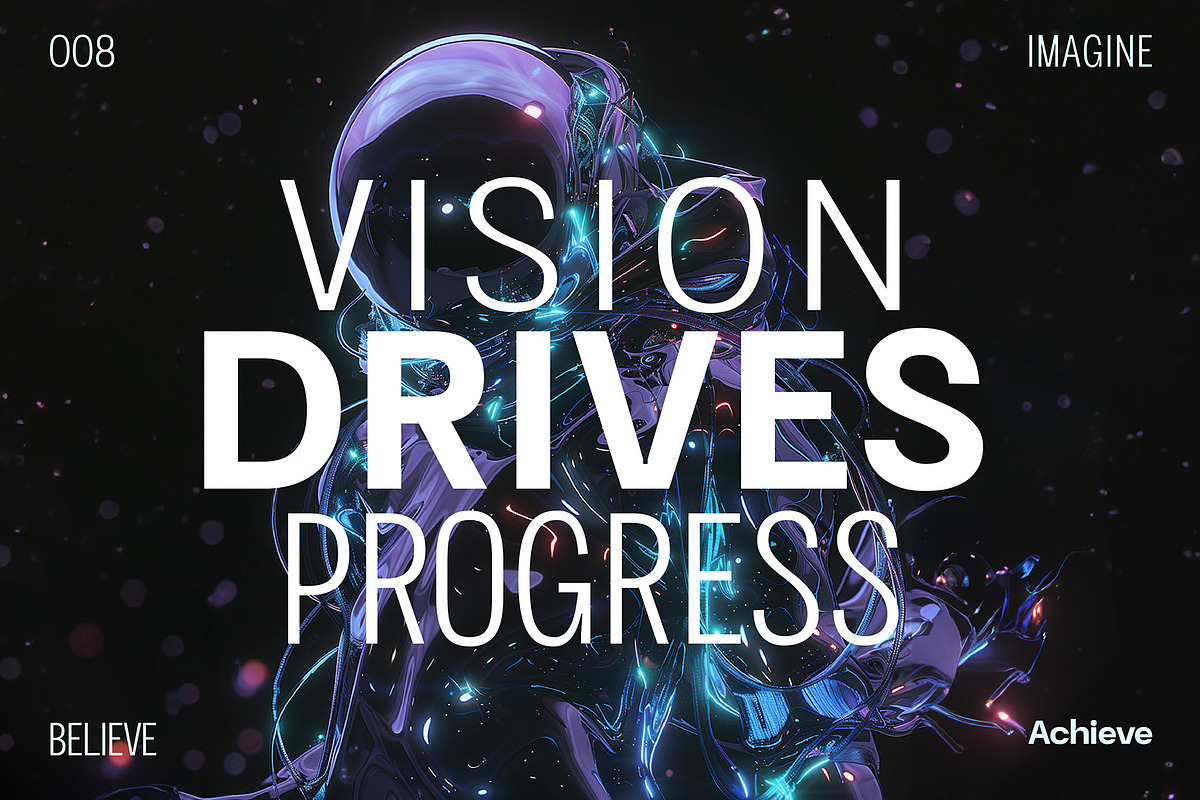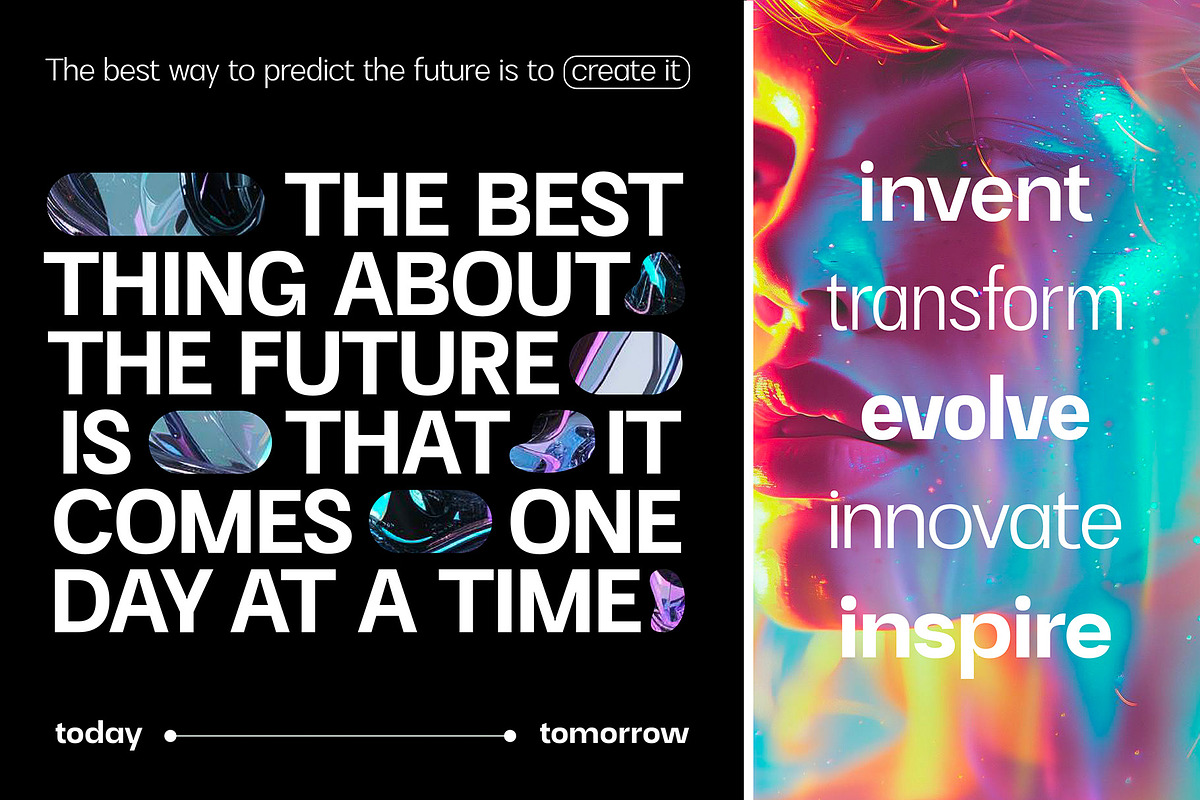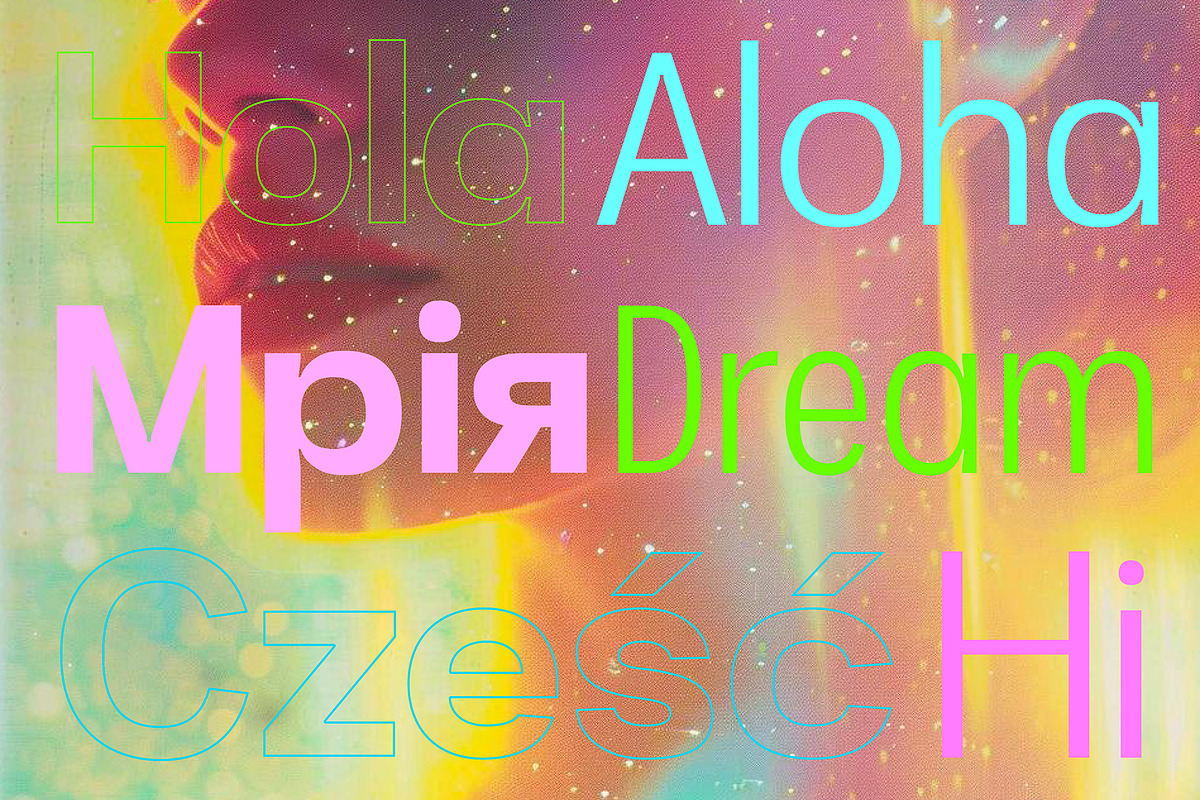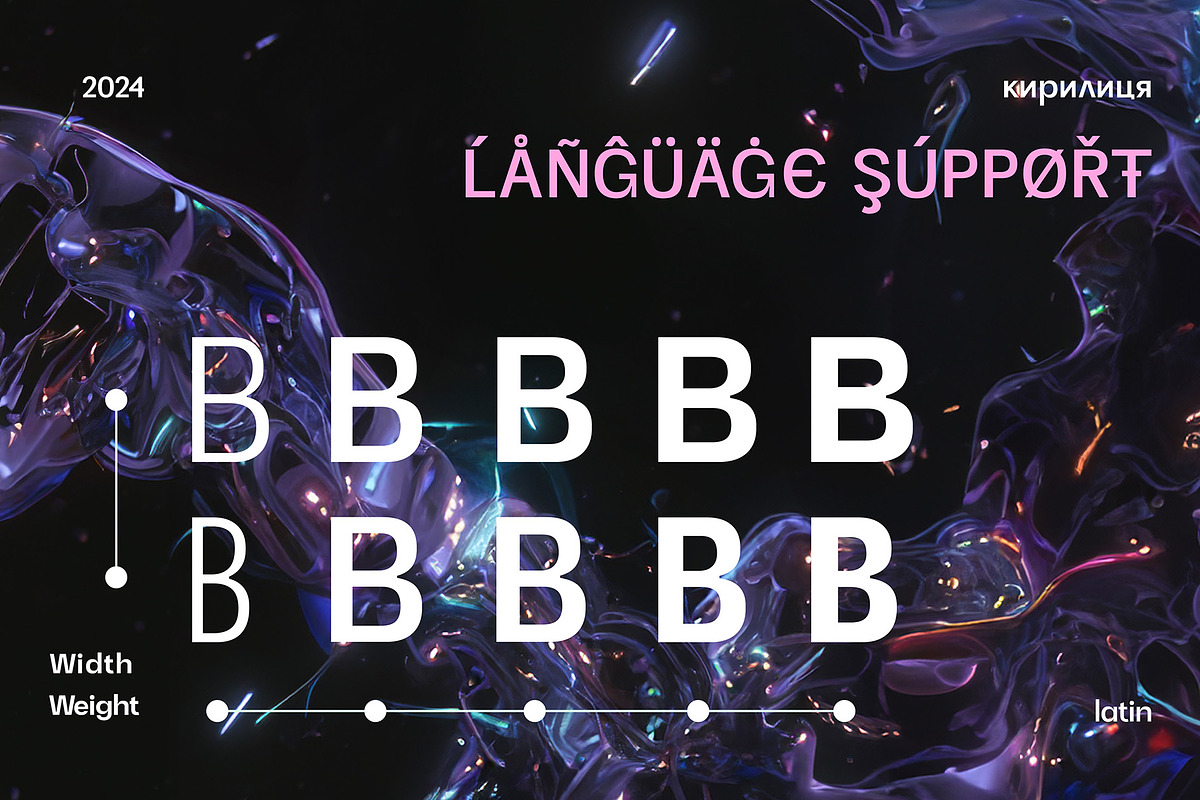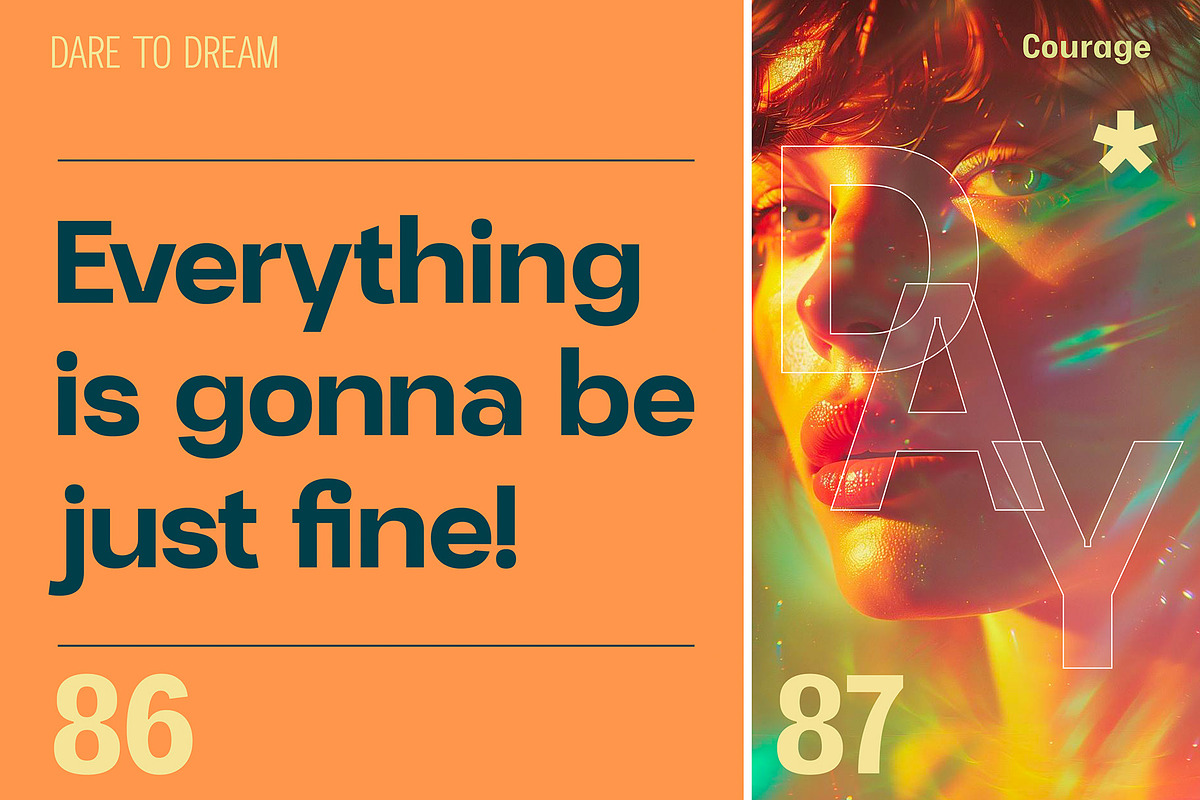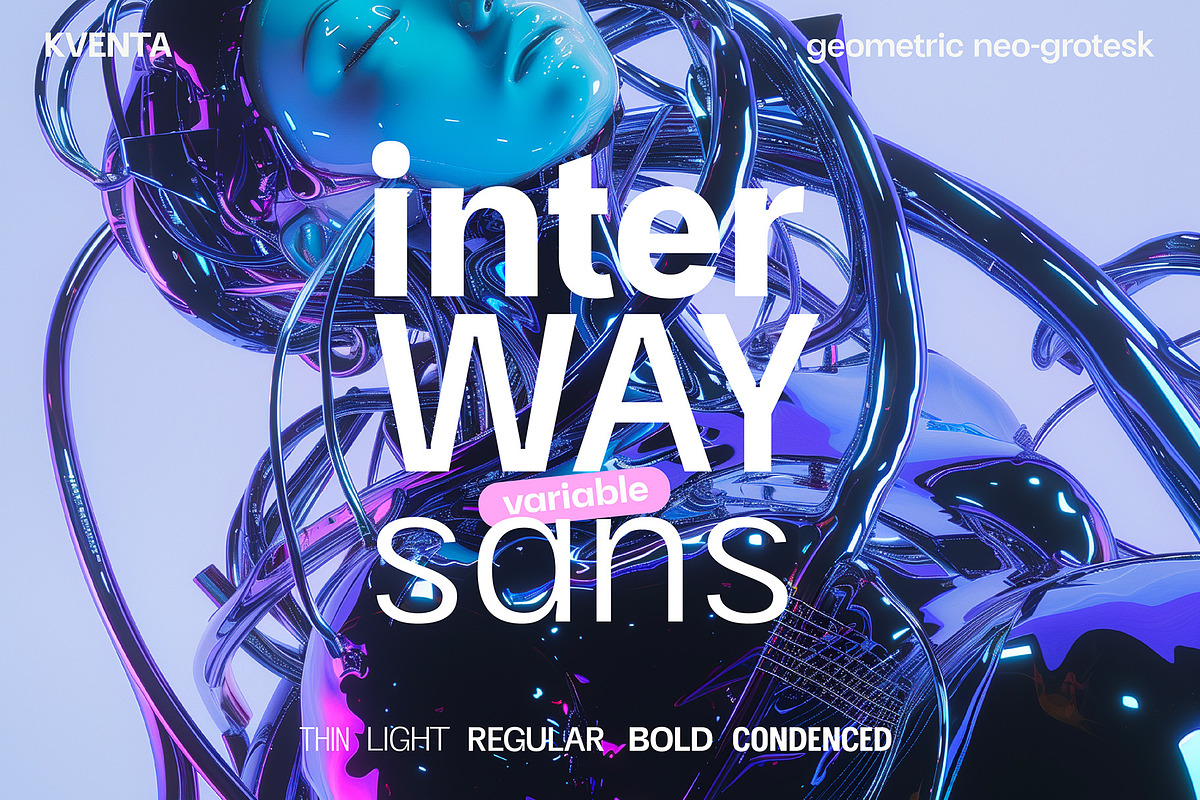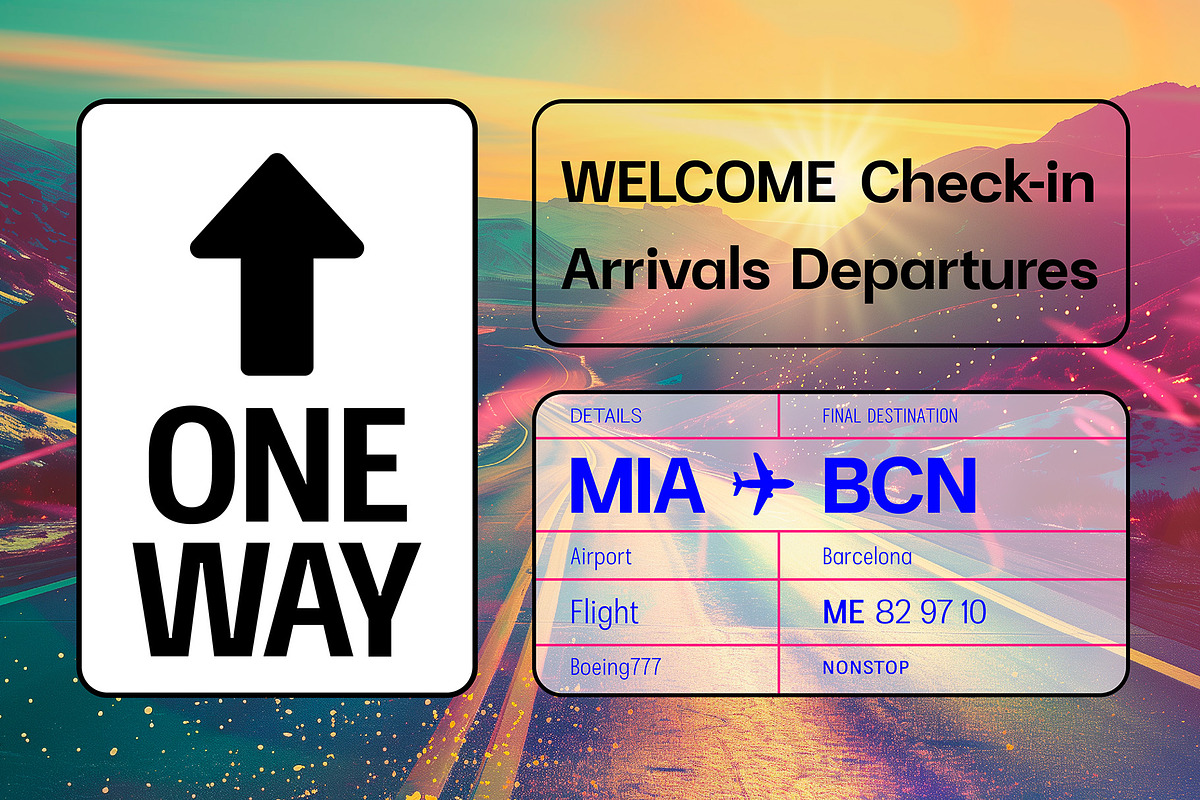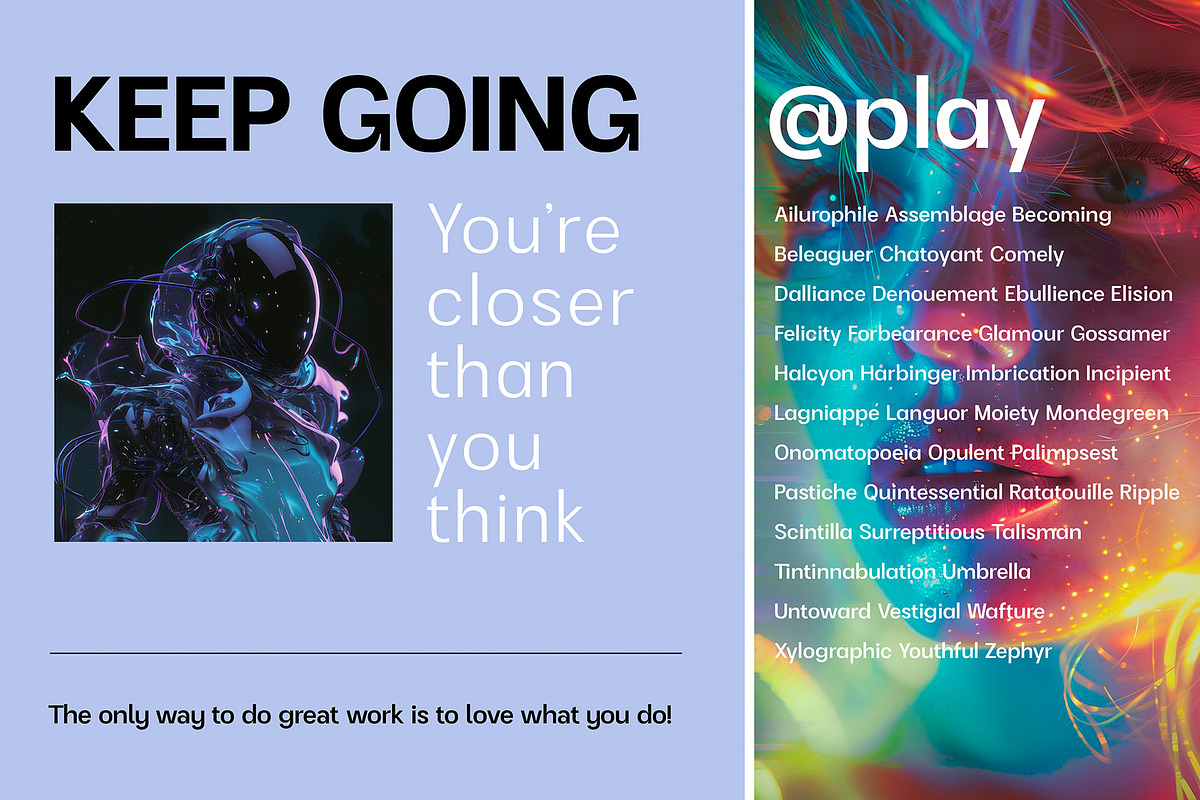
InterWay Variable Sans
Unique Geometric Neo-Grotesk font in Latin and Cyrillic set for use in sophisticated designs.
Fancy and catchy font for maintaining a sophisticated mood in design. InterWay is available in 5 weights. Suitable both for headings and large amounts of text.
Variable Font Included.